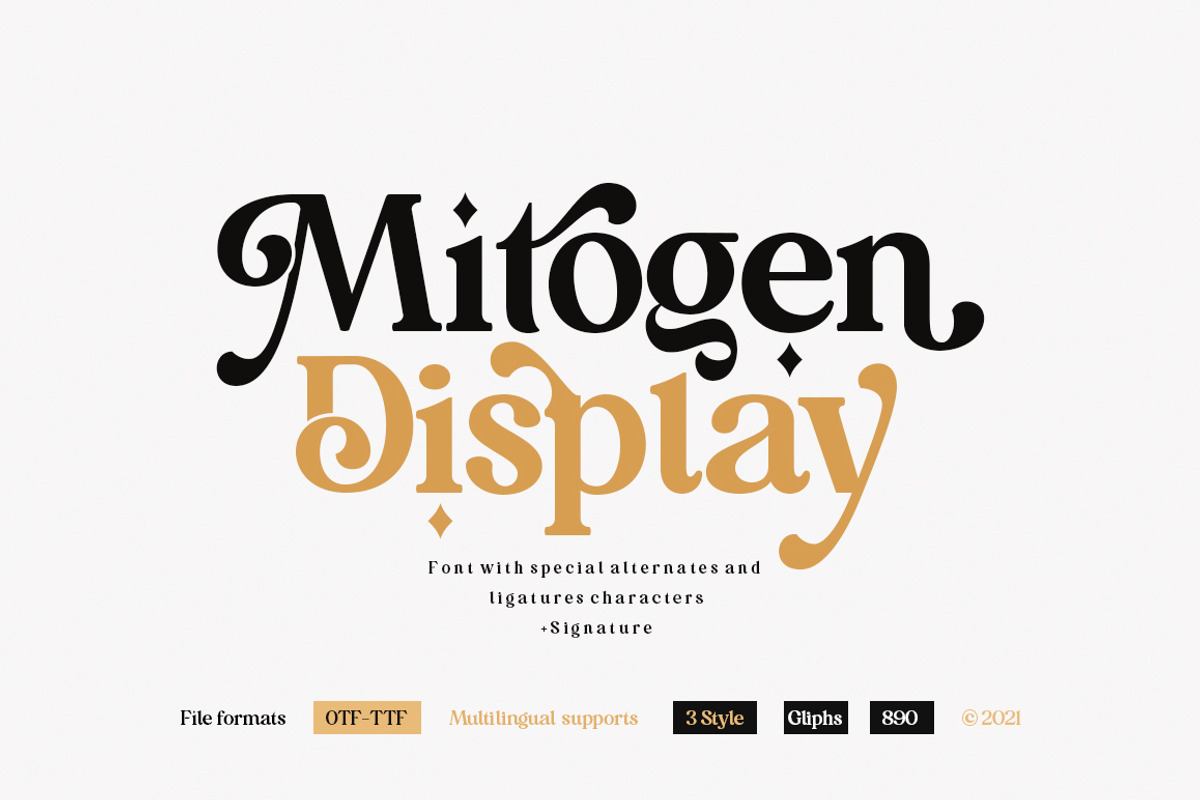
Mitogen Display + Signature Font Free Download is a stylish and versatile font duo that combines a bold, modern display typeface with a smooth, elegant script font. The Mitogen Display font features strong geometric shapes and sharp edges, making it perfect for headlines, logos, and any design that needs a confident, impactful presence. The Mitogen Signature font, on the other hand, brings a delicate, handwritten elegance to your designs, making it ideal for invitations, signatures, branding, and personalized elements.
Together, these fonts work beautifully for projects requiring both bold statement typography and refined, custom handwritten touches. Whether you’re creating a luxury brand identity, wedding stationery, or trendy social media graphics, this font duo gives you the perfect balance of strength and sophistication.
Enhance your designs with Mitogen Display + Signature Font Free Download, and create beautiful, impactful typography that combines boldness and elegance. Perfect for creatives who want a versatile and stylish font pairing.